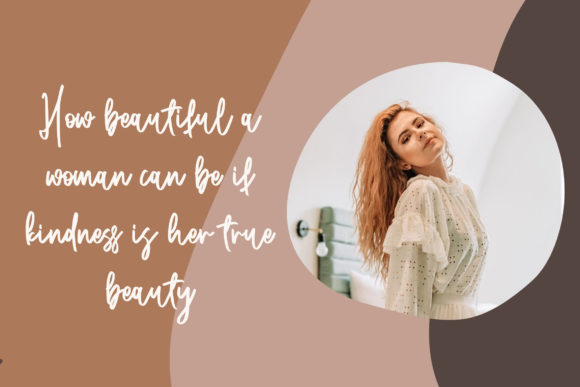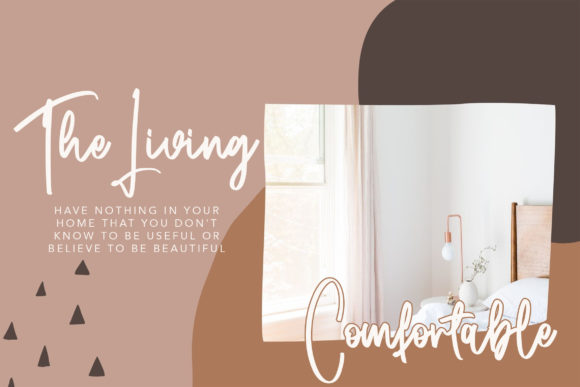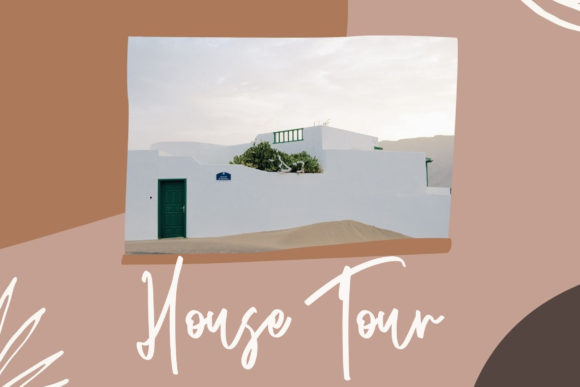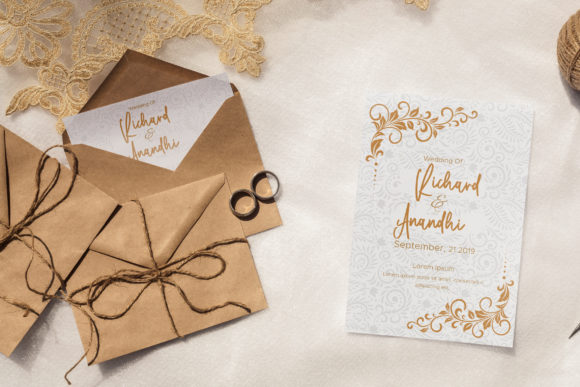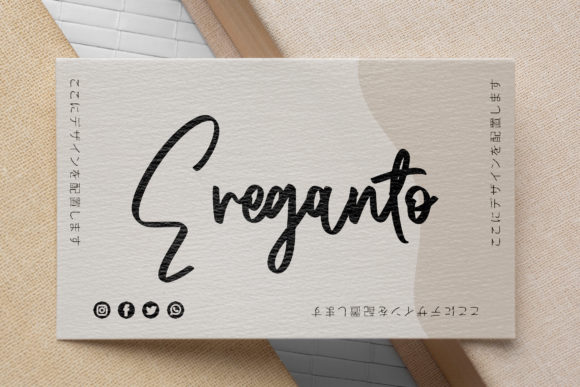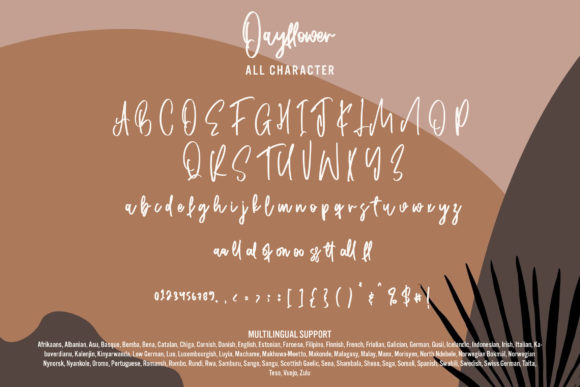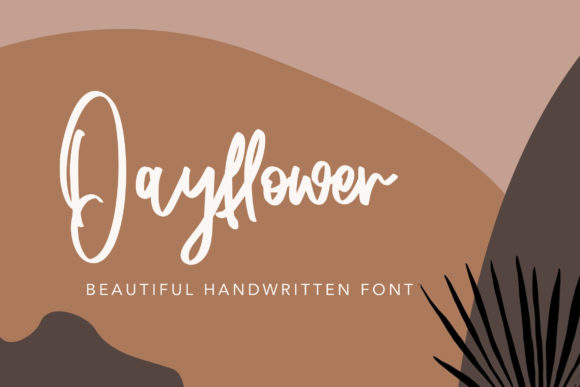
Discover the Charm of Dayflower Font: Elevate Your Designs with Authentic Handwritten Style
Are you on the hunt for a font that exudes warmth, personality, and a touch of whimsy? Look no further than Dayflower Font, a charming handwritten font that’s sure to capture your heart. With its authentic feel and versatile design, Dayflower Font is the perfect choice for creating stunning wedding invitations, beautiful stationary art, eye-catching social media posts, and adorable greeting cards.
Handwritten fonts have a unique ability to add a personal touch to any design. They evoke feelings of warmth, intimacy, and connection, making them perfect for projects that require a human touch. Dayflower Font takes this to the next level with its elegant, cursive script that’s reminiscent of handwritten letters and notes.
What Makes Dayflower Font Special?
So, what sets Dayflower Font apart from other handwritten fonts? Here are just a few of its standout features:
- Authentic feel: Dayflower Font has a genuine, handcrafted feel that’s perfect for creating unique and personalized designs.
- Versatile design: With its elegant script and flowing curves, Dayflower Font is suitable for a wide range of projects, from wedding invitations to social media posts.
- Easy to read: Despite its handwritten nature, Dayflower Font is surprisingly easy to read, making it perfect for longer texts and paragraphs.
- High-quality design: Dayflower Font is meticulously designed to ensure that every letter and character is of the highest quality, giving your designs a professional finish.
Creative Uses for Dayflower Font
Dayflower Font is an incredibly versatile font that can be used in a variety of creative projects. Here are some ideas to get you started:
- Wedding invitations: Create stunning wedding invitations that set the tone for a beautiful and memorable day.
- Stationary art: Use Dayflower Font to create gorgeous stationary art, including notecards, journals, and planners.
- Social media posts: Add a touch of elegance and sophistication to your social media posts with Dayflower Font.
- Greeting cards: Create adorable greeting cards for special occasions, including birthdays, holidays, and anniversaries.
Tips for Using Dayflower Font
To get the most out of Dayflower Font, here are some tips to keep in mind:
- Pair with complementary fonts: Combine Dayflower Font with complementary fonts to create visual interest and add depth to your designs.
- Experiment with colors: Try out different colors and textures to add an extra layer of personality to your designs.
- Play with layout: Don’t be afraid to experiment with different layouts and arrangements to create unique and eye-catching designs.
Dayflower Font is a charming handwritten font that’s sure to capture your heart. With its authentic feel, versatile design, and ease of use, it’s the perfect choice for designers and crafters looking to add a touch of elegance and sophistication to their projects. Whether you’re creating wedding invitations, stationary art, social media posts, or greeting cards, Dayflower Font is sure to help you create something truly special.